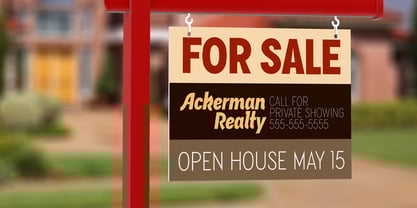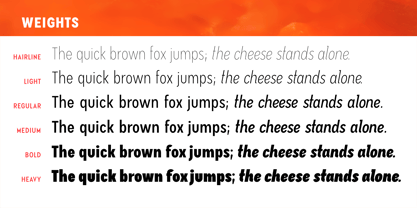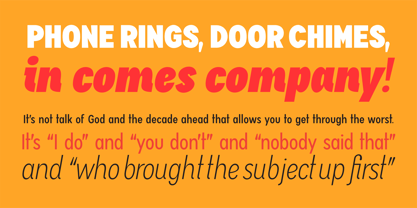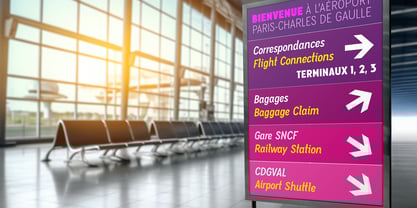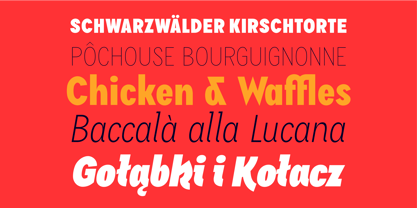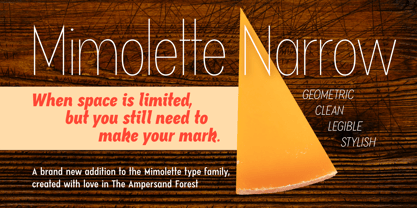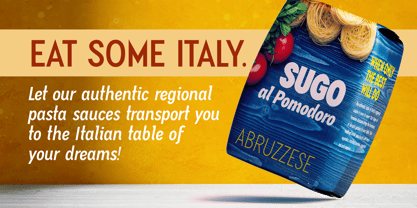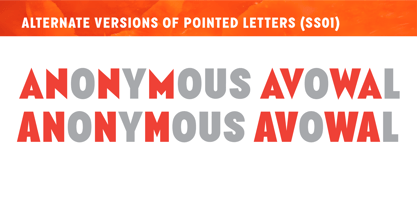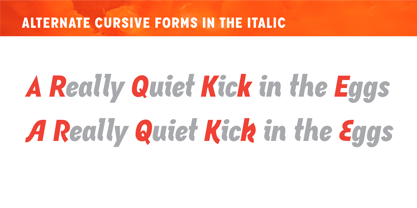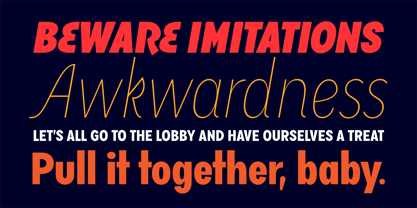
Mimolette Narrow
by The Ampersand Forest
The Mimolette Narrow Font Family was designed by DC Scarpelli and published by The Ampersand Forest. Mimolette Narrow contains 12 styles and family package options.
Joining Mimolette, the workhorse geometric type family from The Ampersand Forest, is her svelte little sister, Mimolette Narrow!.
Mimolette and Mimolette Narrow offer a sans serif family that's great for text and display alike—the panache of Neutraface, the readability of Avenir, the sleekness of Avant Garde, the strength of Mark, the architecture of Gotham, and the classic lines of Futura—but she's entirely her own creature, and she's designed to offer maximum versatility and beauty at an affordable price.
And she's got some nifty features, too!
• Her italic is a true italic, not just an oblique.
• Are the uberpointy diagonals (AMVW) not working in a particular context? Activate Stylistic Set 01, and they become flat-topped!
• Want more playful cursive alternatives in the italic? Activate Stylistic Set 02, and you've got them in the A, E, K, Q, R, and k.
• She's got true small caps in all styles!
• She's got true fractions in all styles, as well as oldstyle (small cap) and lining numerals, in both tabular and proportional widths.
Best of all, perhaps, Mimolette Narrow was made with love, as always, by yer pals in the Ampersand Forest.